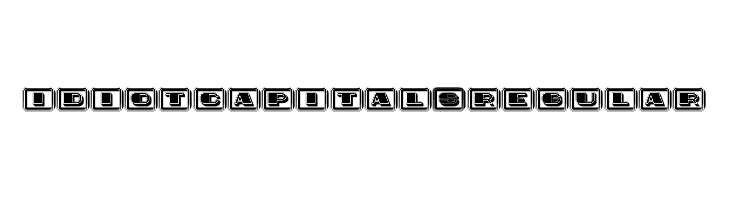
• Idiot Capitals Regular Fuentes
A bold, decorative font with a 3D effect and enclosed block-like characters.
• Idiot Gradient Italic Fuentes
A bold, 3D italic font with a gradient effect and shadowed outlines.
• Idiot Gradient Regular Fuentes
A bold, 3D gradient font with a modern, shadowed appearance.
• Idiot Italic Fuentes
Bold, italicized font with a 3D shadow effect.
• Idiot Regular Fuentes
A bold, three-dimensional font with a geometric, industrial style.
• Idiot Stax Fuentes
A bold, brush-stroke style font with a dynamic and textured appearance.
• Idiotism Basic Regular Fuentes
A bold, geometric font with a modern, stencil-like appearance.
• Idiotism Book Hollow Regular Fuentes
A bold, hollow, geometric font with a modern and industrial style.
• Idiotism Book Regular Fuentes
A bold, geometric font with double-line outlines and a modern, architectural style.
• Idiotism Hollow Regular Fuentes
A bold, hollow, geometric font with a modern and decorative style.